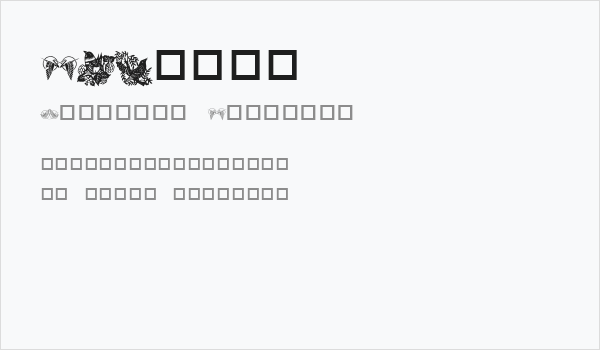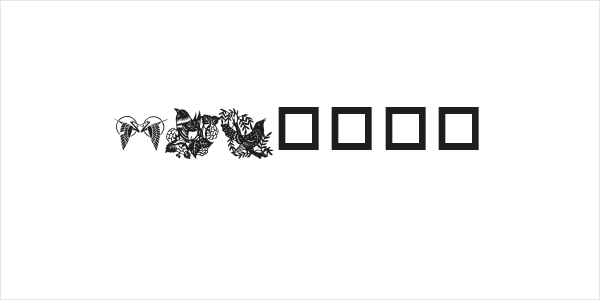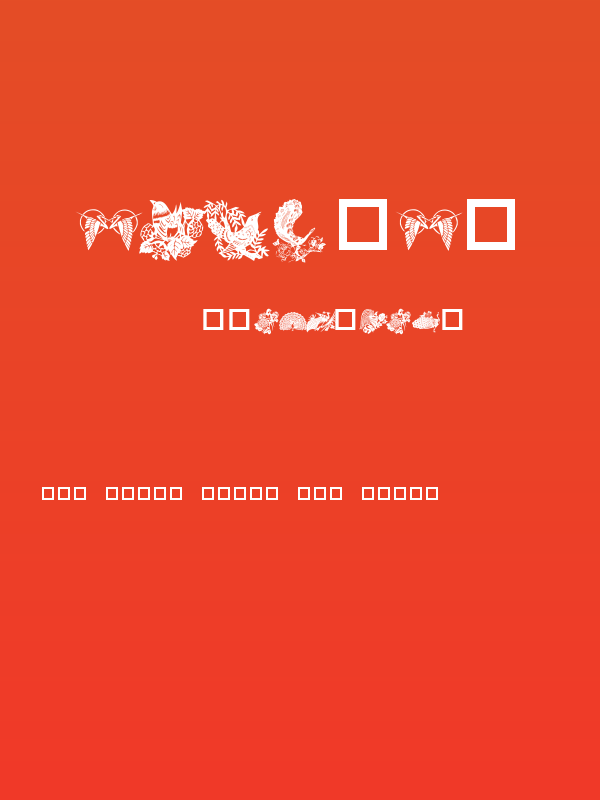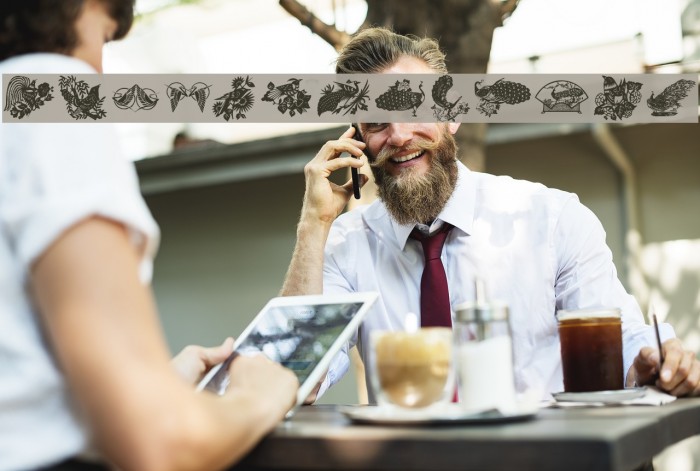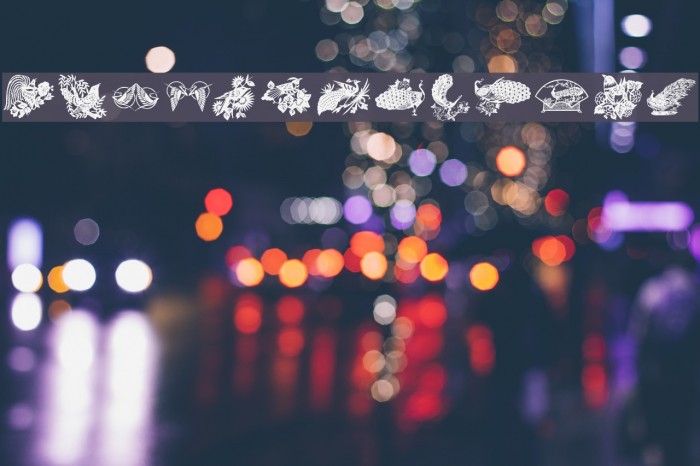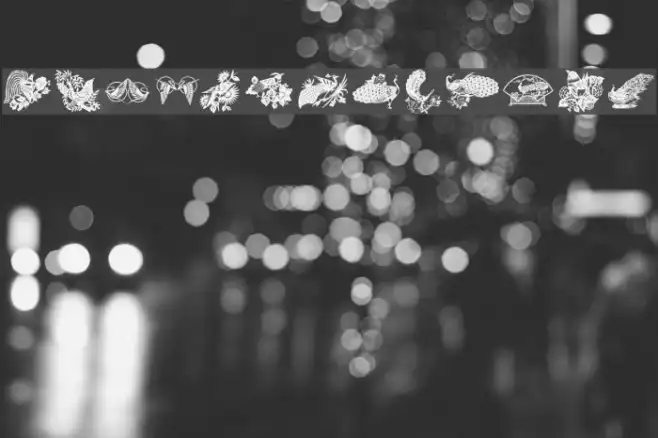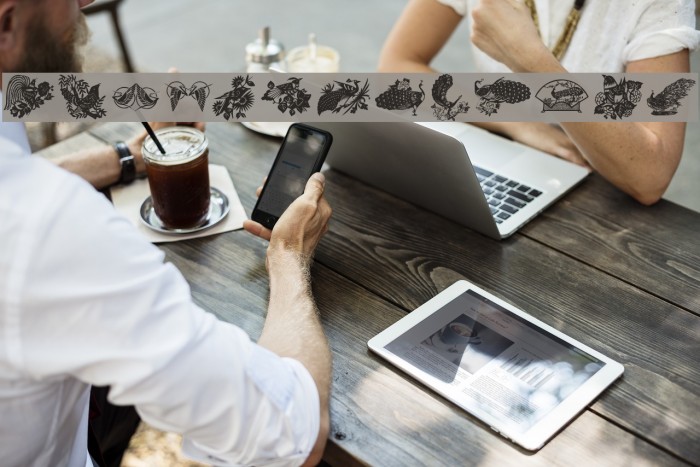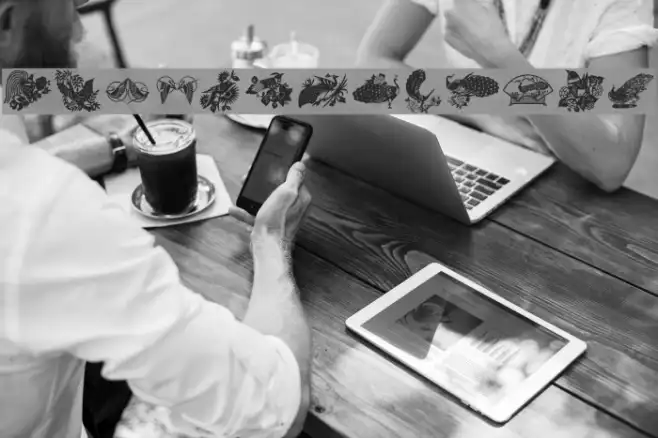
DLBirdz Font
DLBirdz Description
A decorative display font featuring detailed bird illustrations for each character, with intricate linework and unique silhouettes for every glyph. The style is highly ornamental and artistic, focusing on visual motifs rather than traditional letterforms.
| Overall Style | Decorative, Artistic, Ornamental |
| Use Case | Logos, Headlines, Decorative text, Themed projects |
| Proposed Projects | Greeting cards, posters, invitations, themed branding, educational materials, decorative headings. |